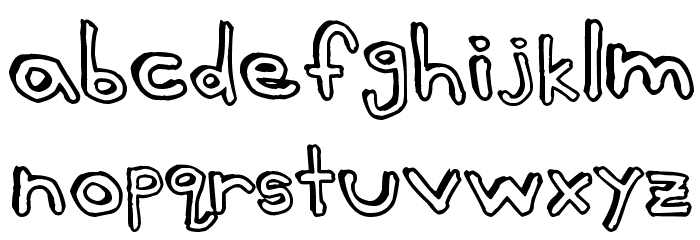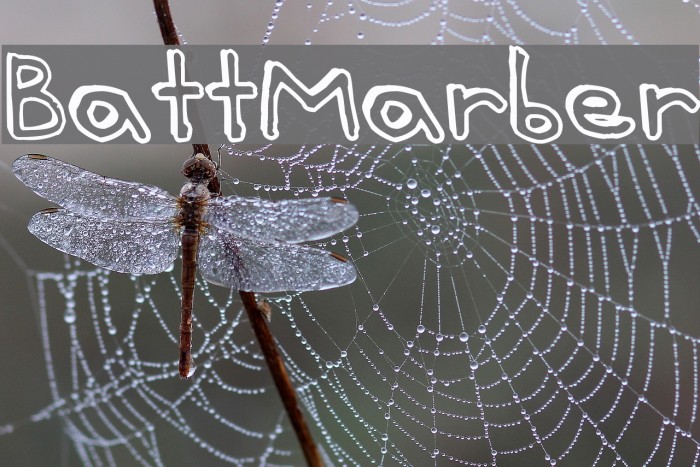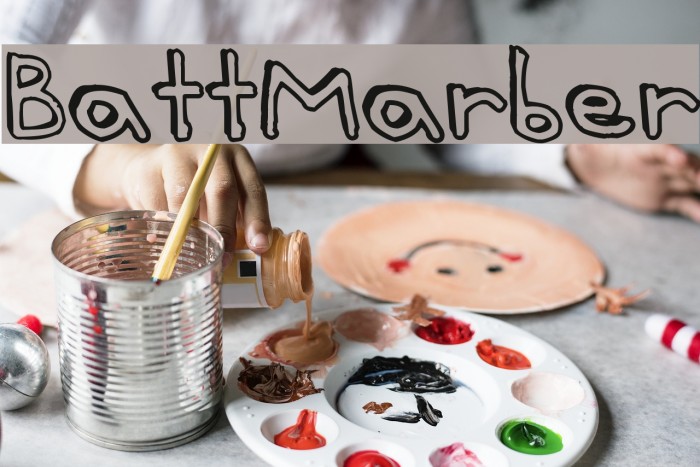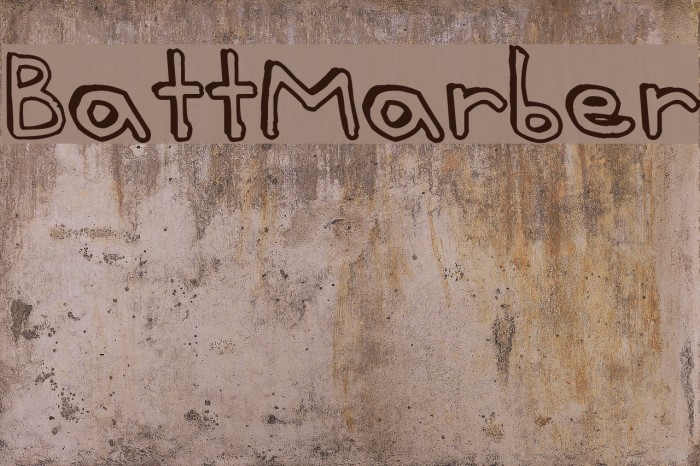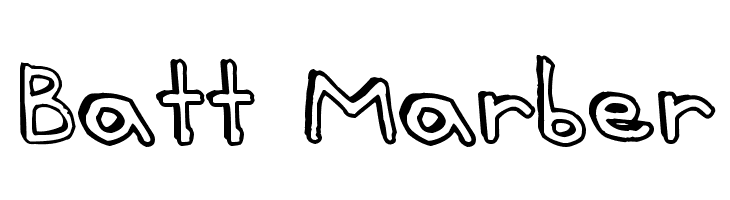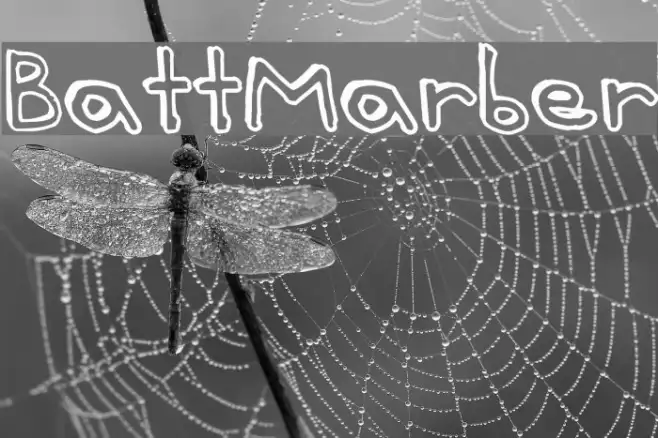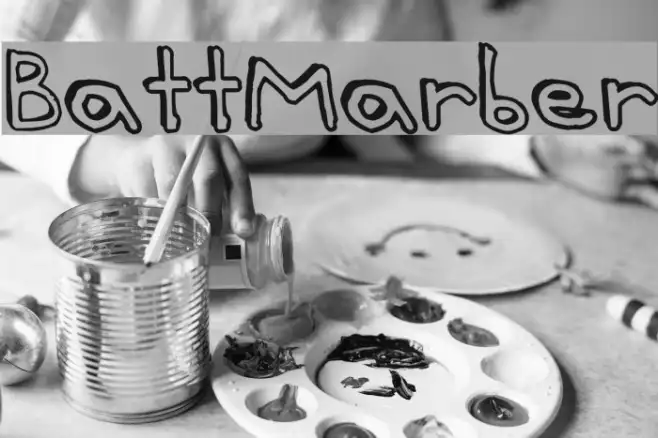
Batt Marber Font
This font features a playful and hand-drawn style, characterized by its uneven lines and whimsical appearance. The letters have a casual, informal look, with slightly irregular shapes that give them a unique and artistic flair. The uppercase and lowercase letters maintain a consistent style, with rounded edges and a slightly bold appearance. The numbers and special characters follow the same design principles, ensuring a cohesive look across all elements. This font is ideal for projects that require a fun and approachable aesthetic, such as children's books, playful branding, or creative posters.
A playful, hand-drawn font with uneven lines and a whimsical style.
- Proposed Projects: Children's books, playful branding, creative posters, casual invitations.
- Overall Style: Playful, Artistic